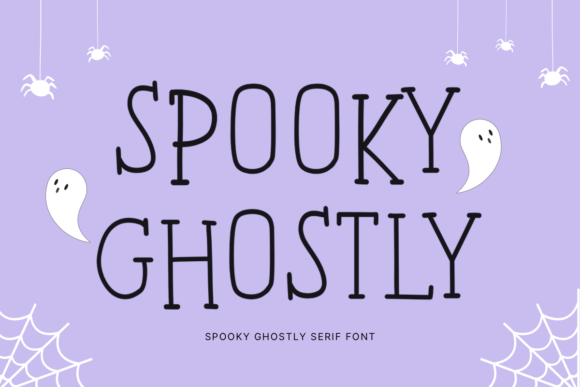
Journey into the realm of the supernatural with Spooky Ghostly, the slab serif font that will send shivers down your spine. Crafted by The Magic Bee Studio, this eerie, haunting font is perfect for all your Halloween-themed designs.
With its ghostly twists and turns, Spooky Ghostly conjures up an atmosphere of mystery and intrigue. Its elegantly crafted serifs add a touch of sophistication, making it a font that stands out from the ordinary. Whether you're designing posters, invitations, or social media graphics for your Halloween festivities, this font will cast a spellbinding charm over your projects.
Let your imagination soar as you explore the spine-chilling possibilities of Spooky Ghostly. Create haunting posters that will make your Halloween party the talk of the town. Design spine-tingling invitations that will have your guests eagerly awaiting your spooky soirée. And craft social media graphics that will send a shiver down the spines of your followers.
With Spooky Ghostly, the creative possibilities are endless. Let this font be your guide as you conjure up frighteningly good designs that will leave a lasting impression. Experience the magic of Spooky Ghostly and unleash your inner artist.
Here are some additional reasons why Spooky Ghostly is the perfect font for your Halloween designs:
- Its unique and eye-catching design is sure to grab attention and make your projects stand out.
- The font's versatility allows you to use it for a variety of Halloween-themed projects, from posters and invitations to social media graphics and website designs.
- Spooky Ghostly is easy to read and understand, even at small sizes, making it perfect for use on both print and digital media.
- The font's crisp and clean lines give it a professional look that will make your projects look polished and sophisticated.